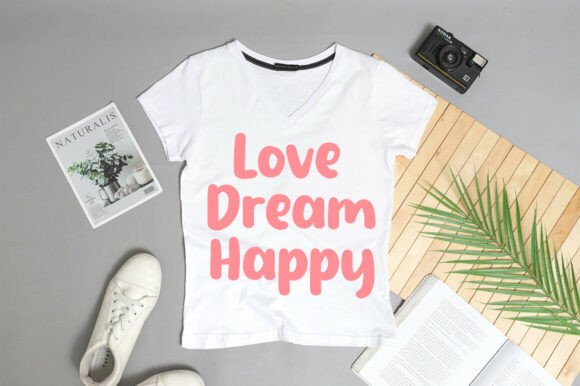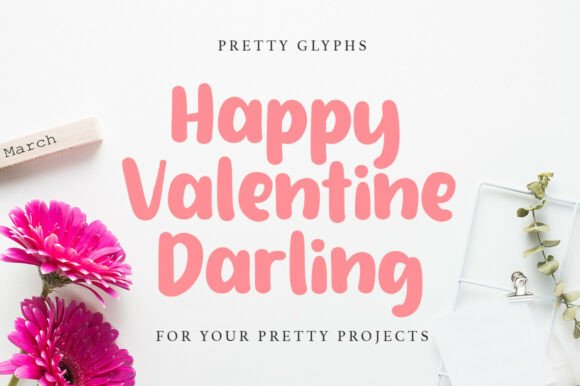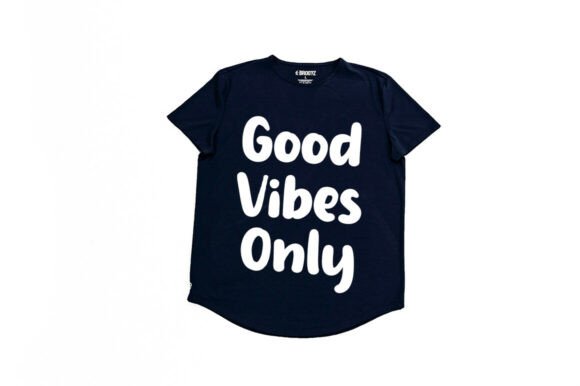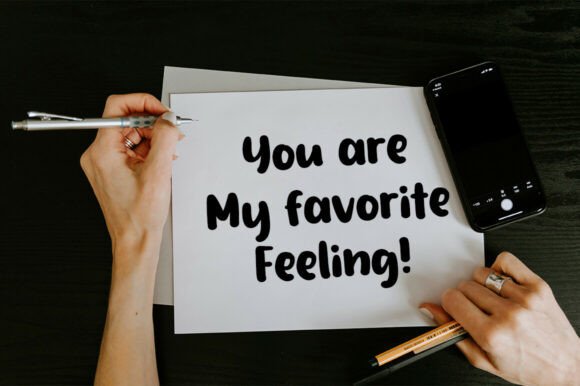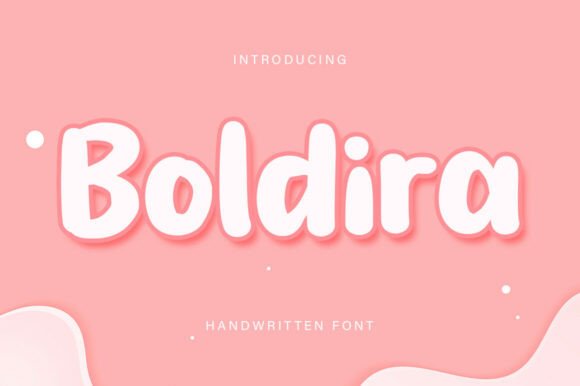
Introducing Boldira Font: The Epitome of Handwritten Elegance
In the realm of typography, few fonts manage to capture the essence of human touch and warmth. Boldira Font is one such exquisite handwritten font that infuses designs with a sense of individuality, sincerity, and organic charm. This meticulously crafted font is designed to emulate genuine handwriting, making every character a masterpiece of fluidity and elegance.
The Organic Beauty of Handwritten Typography
Boldira Font boasts a unique, handcrafted quality that sets it apart from more conventional fonts. Each character is carefully designed to mimic the natural flow of handwriting, complete with delicate imperfections that add to its charm. The elegant curvature and rhythmic flow of the letters create an inviting and fashionable allure, making it perfect for a wide range of creative projects.
One of the standout features of Boldira Font is its adaptability. It effortlessly walks the line between relaxed and refined, making it an excellent choice for various design applications. Whether you’re working on logo creation, brand development, social media content, invitations, packaging, or DIY crafts, this font is sure to bring a touch of effortless charisma and originality to your work.
Crafting Emotional Connections
The charismatic appearance of Boldira Font brings a personal, emotive edge to text, creating an instant bond with the audience. This font is stunning in both brief phrases and extended writings, and its versatility allows it to pair harmoniously with serif, sans serif, or minimalist fonts. By incorporating Boldira Font into your designs, you can enhance the impact and appeal of your creative work, making it more relatable and engaging.
Design Applications and Inspiration
Boldira Font is a versatile tool that can elevate a myriad of design projects. Here are a few ideas to get you started:
- Logo Creation: Use Boldira Font to craft a unique and memorable logo that reflects your brand’s personality.
- Brand Development: Incorporate this font into your brand’s visual identity to add a touch of warmth and individuality.
- Social Media Content: Make your social media posts stand out with the charming and fashionable allure of Boldira Font.
- Invitations and Packaging: Add a personal touch to your invitations, packaging, and other printed materials with this exquisite handwritten font.
- DIY Crafts: Use Boldira Font to add a creative and emotive edge to your DIY craft projects, such as handmade cards, journals, or artwork.
Why Choose Boldira Font?
With so many fonts available, why choose Boldira Font? Here are a few compelling reasons:
- Unique and Original: Boldira Font offers a distinctive and original style that sets it apart from more conventional fonts.
- Emotive and Personal: This font brings a personal, emotive edge to text, creating an instant connection with the audience.
- Versatile and Adaptable: Boldira Font is suitable for a wide range of design applications, from logo creation to DIY crafts.
- Easy to Read and Understand: The elegant curvature and rhythmic flow of the letters make Boldira Font easy to read and understand, even in extended writings.
In conclusion, Boldira Font is an exquisite handwritten font that can elevate your designs with warmth, individuality, and a hint of sincerity. Its organic beauty, versatility, and emotive quality make it an excellent choice for designers and crafters looking to add a personal touch to their creative projects. Whether you’re working on a logo, brand development, social media content, or DIY crafts, Boldira Font is sure to bring a touch of effortless charisma and originality to your work.
Get Ready to Imbue Your Designs with Warmth and Character
With Boldira Font, you can add a unique and personal touch to your designs, making them more relatable and engaging. So why wait? Explore the creative possibilities of Boldira Font today and discover a world of typographic elegance and charm.